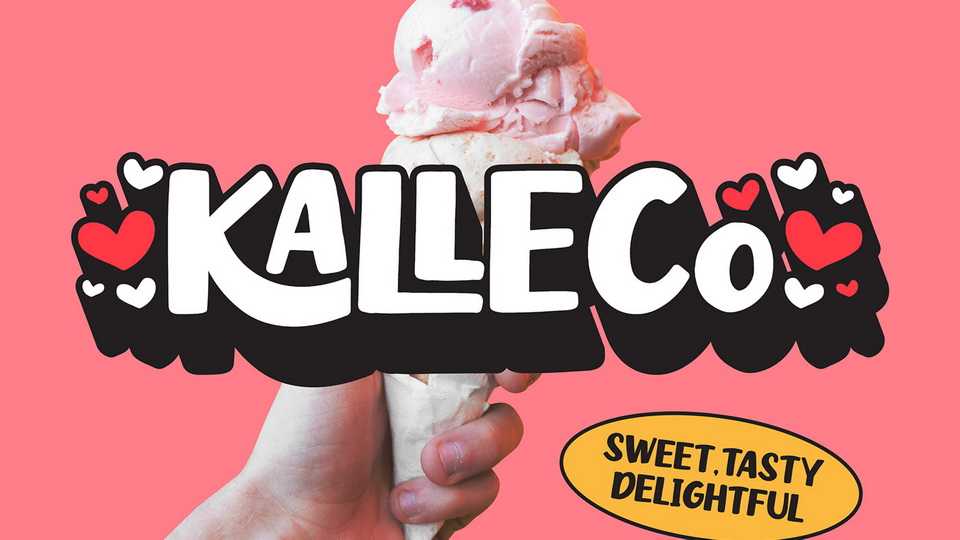
Download Kalleco font, a fun and cute hand lettered typeface with a sweet and delightful look. Kalleco is ideal to create the best design and make your projects cosy, funny, truly hand-painted realistic and natural.